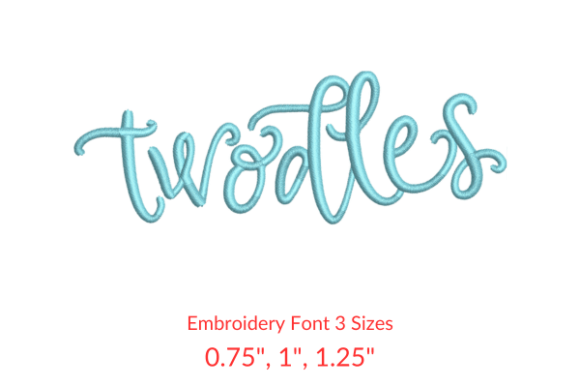
Twodles Font: A Modern Solution for Personalized Embroidery Design
In an era where personalization is becoming the norm rather than the exception, Twodles Font stands out as a versatile and high-quality embroidery font that empowers creators to bring their ideas to life with precision and style. Whether you're a hobbyist looking to add a unique touch to your DIY projects or a professional seeking to enhance your brand's visual identity through custom textiles, this font offers a seamless blend of creativity and functionality.
The Rise of Customization in Creative Industries
The creative industries are undergoing a significant transformation, driven by evolving consumer expectations and the increasing demand for personalized experiences. Today’s audiences no longer settle for generic designs; they seek items that reflect their individuality and values. This shift has led to a surge in demand for customizable products, from apparel and home décor to promotional materials and event accessories.
Twodles Font plays a crucial role in this trend by offering a high-quality embroidery solution that allows users to craft unique designs with ease. Whether it's adding a name, a meaningful quote, or a special date to fabric, this font provides the flexibility needed to meet the diverse needs of modern creators. Its clean lines and elegant structure make it ideal for both casual and formal applications, ensuring that every design maintains a polished appearance.
Why Twodles Font Matters for Embroidery Enthusiasts
For those who enjoy working with embroidery, Twodles Font represents a game-changer. Traditional embroidery fonts often come with limitations—either they lack the detail required for intricate designs or they are incompatible with various embroidery machines. Twodles Font addresses these pain points by providing a comprehensive set of features tailored to the needs of both beginners and seasoned professionals.
Practical Applications Across Industries
The practical implications of using Twodles Font extend beyond personal projects. For entrepreneurs and business owners, this font offers an opportunity to elevate their branding through custom embroidered products. From personalized gifts to branded merchandise, the ability to create unique text elements can significantly enhance the appeal of your offerings.
Similarly, educators and marketers can leverage Twodles Font to create engaging visual content for presentations, workshops, or promotional campaigns. The font’s readability and aesthetic appeal make it suitable for a wide range of applications, whether you’re designing a banner for an event or crafting a custom label for a product.
Freelancers and hobbyists alike will find value in the font’s adaptability. Whether you're working on a custom piece for a client or simply experimenting with new design ideas, Twodles Font provides the tools necessary to bring your vision to life without compromising quality or consistency.
How Twodles Font Fits Into Modern Workflows
As technology continues to evolve, so do the tools and techniques used in creative fields. The integration of digital design software with physical embroidery processes has made it easier than ever to produce high-quality, customized textiles. Twodles Font aligns perfectly with this shift by offering a user-friendly solution that integrates smoothly into existing workflows.
For instance, many designers now rely on digital platforms to plan and preview their embroidery designs before transferring them to physical fabric. Twodles Font supports this process by allowing users to test different text placements and styles virtually, reducing the need for multiple physical prototypes. This not only saves time but also minimizes material waste, making the entire process more efficient and sustainable.
Additionally, the font’s compatibility with multiple embroidery machines means that users can choose the best tool for their specific project without worrying about format restrictions. This level of flexibility is particularly valuable for those who work with a variety of equipment or collaborate with other creators who may use different machines.
Real-World Examples of Twodles Font in Action
To better understand the impact of Twodles Font, consider a few real-world scenarios:
- A local boutique owner uses Twodles Font to create custom name tags for customers, adding a personal touch to each item.
- A wedding planner incorporates the font into custom monogrammed invitations and table numbers, enhancing the overall theme of the event.
- A fashion designer utilizes Twodles Font to embroider personalized messages onto clothing, creating one-of-a-kind pieces that resonate with individual buyers.
- A small business owner adds the font to product packaging, reinforcing brand identity while maintaining a professional and cohesive look.
These examples highlight how Twodles Font can be applied across various industries and contexts, proving its value as a versatile tool for creators of all skill levels.
Choosing the Right Font for Your Project
When selecting an embroidery font, it’s essential to consider factors such as readability, scalability, and compatibility. Twodles Font excels in all these areas, making it an excellent choice for anyone looking to add text-based designs to their fabric projects.
Readability is crucial, especially when the final product will be viewed up close. Twodles Font ensures that every character is clear and legible, even when scaled down to fit smaller spaces. This makes it ideal for applications such as name tags, labels, and decorative accents.
Scalability is another key consideration, as embroidery designs often require adjustments based on the size of the fabric or the intended use. Twodles Font maintains its integrity at different scales, ensuring that your design remains sharp and professional regardless of the final output.
Finally, compatibility with multiple embroidery file formats means that Twodles Font can be used with a wide range of embroidery machines, eliminating the need for additional conversions or specialized software. This level of accessibility makes it an invaluable asset for both novice and experienced embroiderers.
Looking Ahead: The Future of Embroidery Fonts
As the demand for personalized and customizable products continues to grow, the importance of high-quality embroidery fonts like Twodles Font will only increase. With advancements in digital design and embroidery technology, we can expect to see even more innovative solutions that cater to the evolving needs of creators and consumers alike.
However, it’s important to remember that the success of any design ultimately depends on the skill and creativity of the person behind it. Twodles Font serves as a powerful tool, but it’s the vision and execution that bring a design to life. By choosing the right font and combining it with thoughtful design principles, you can create products that truly stand out in a competitive market.
In conclusion, Twodles Font offers a reliable and adaptable solution for anyone interested in personalized embroidery. Whether you're a professional designer, a hobbyist, or a small business owner, this font provides the tools needed to elevate your creative projects and meet the growing demand for customization in today’s market.